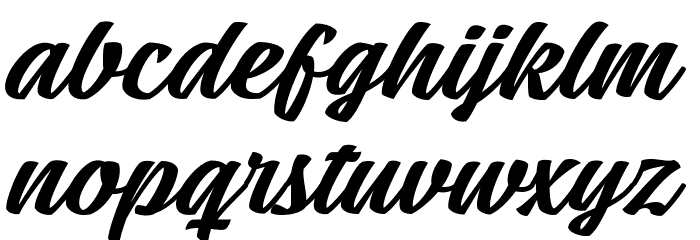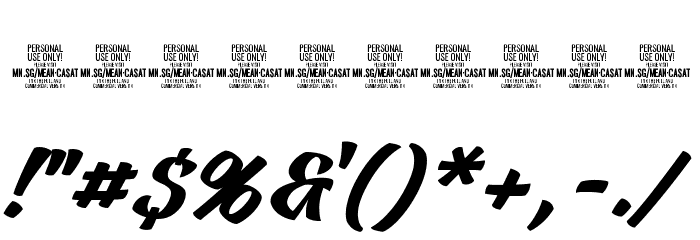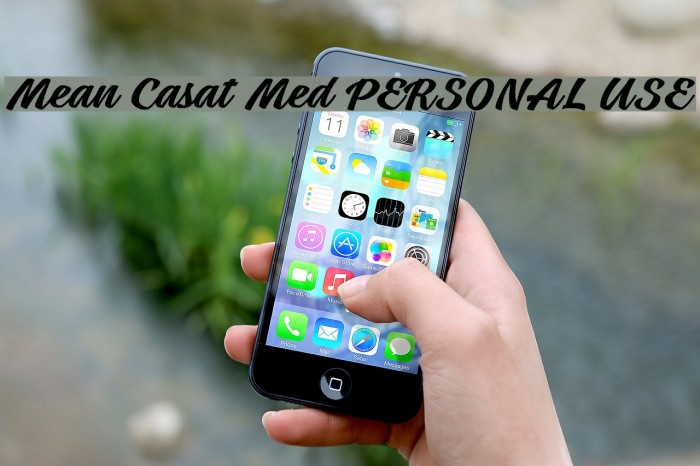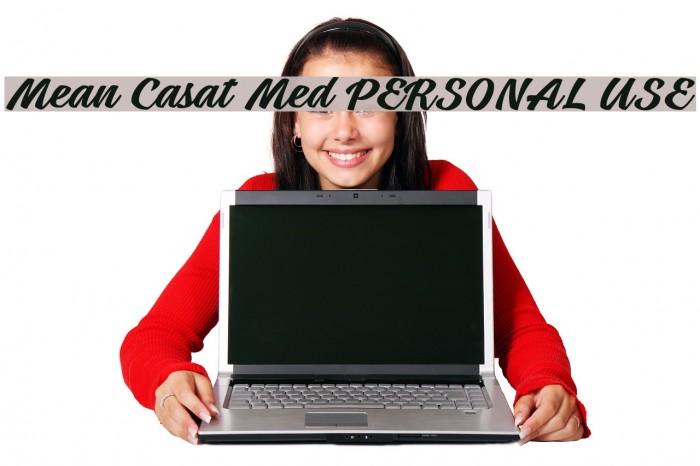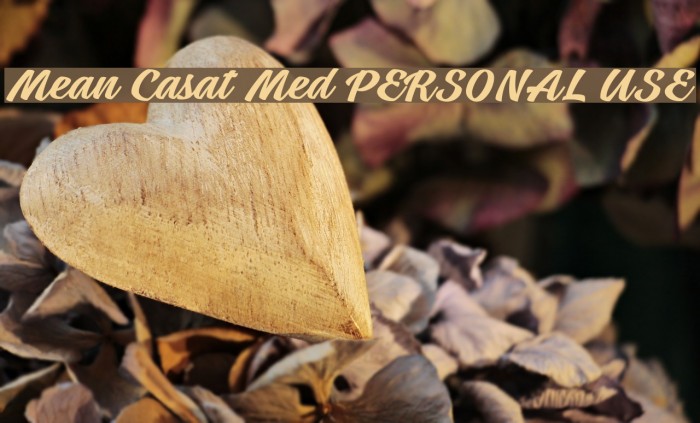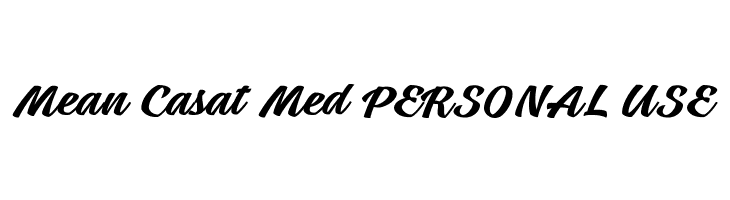
Mean Casat Med PERSONAL USE Font
This font features a bold and dynamic script style with a modern flair. The letters are interconnected, creating a flowing and cohesive appearance. The uppercase characters are slightly more angular, while the lowercase letters maintain a smooth, cursive look. The numbers and special characters are designed to match the overall style, ensuring consistency across all text elements. The font's boldness makes it stand out, while its script nature adds a touch of elegance and sophistication.
A bold, modern script font with interconnected letters and a dynamic style.
- Proposed Projects: Ideal for branding, logos, invitations, and headlines where a bold and elegant script is desired.
- Character Spacing: Tight
- Use Case: Logos, Headlines, Invitations